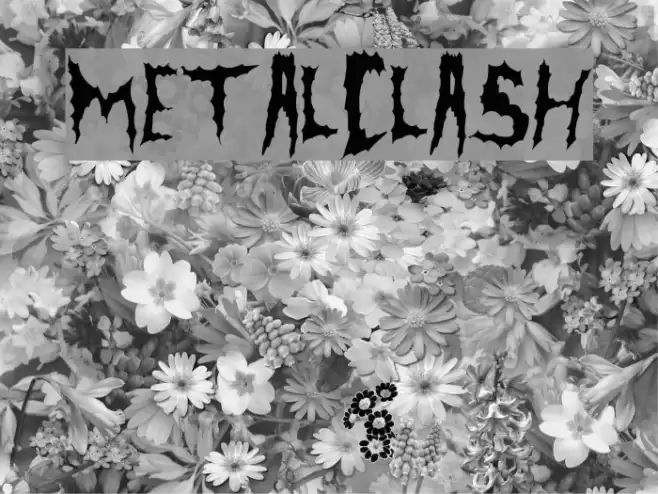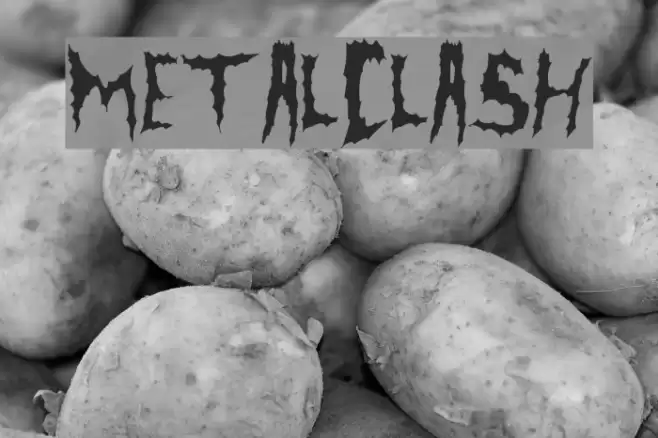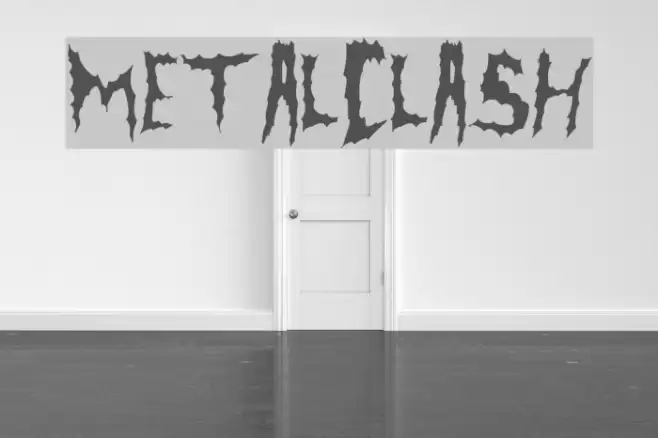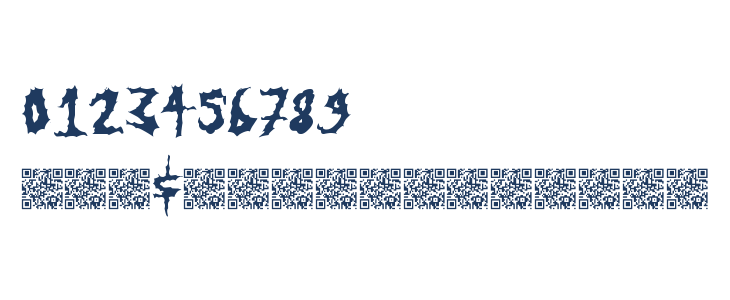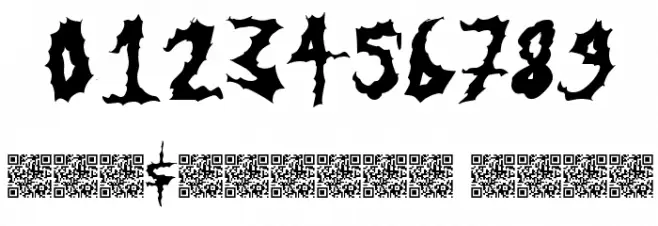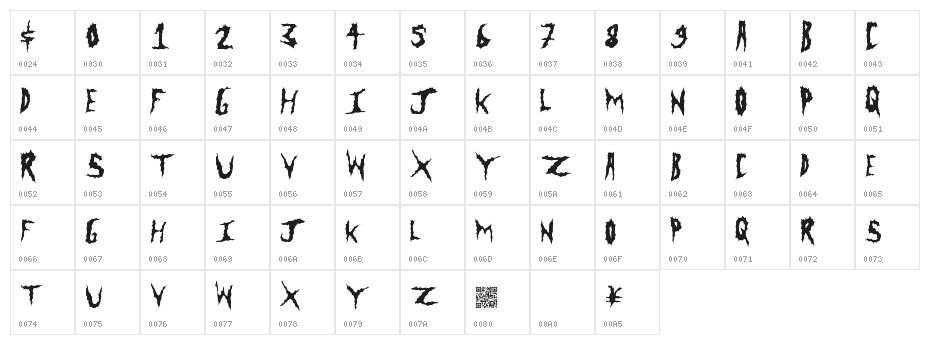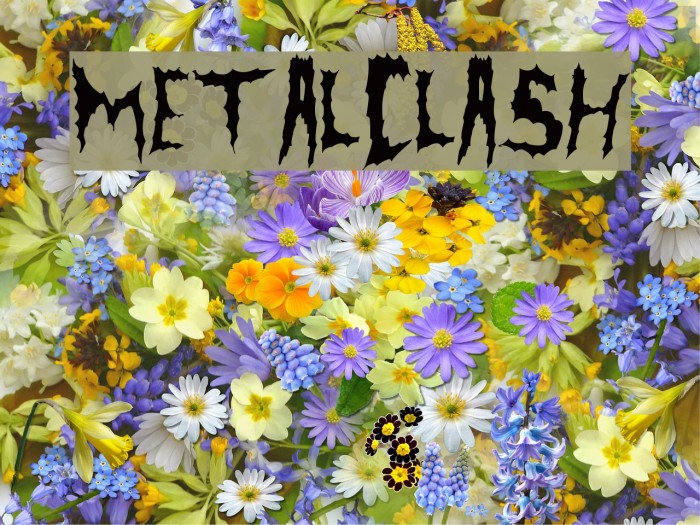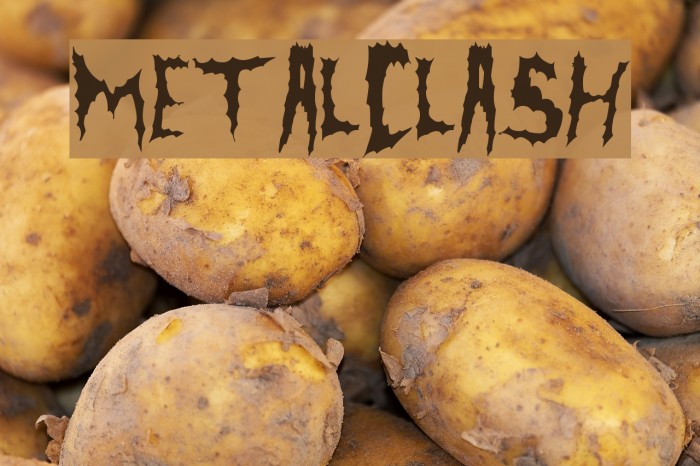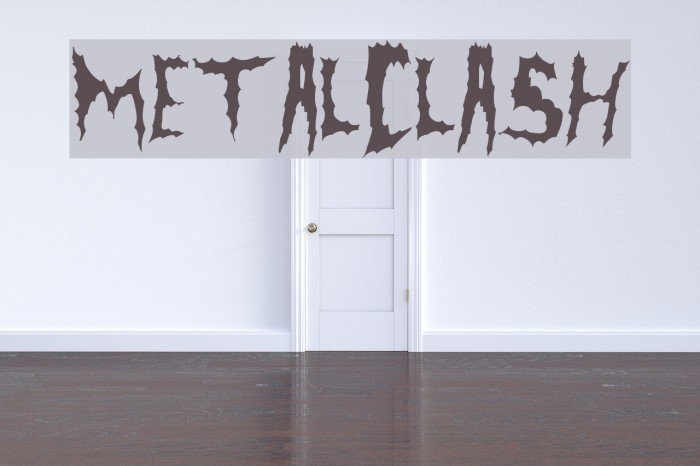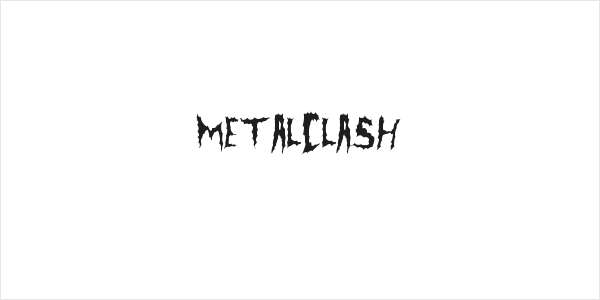
MetalClash Font
MetalClash Description
This font features a bold and jagged design, reminiscent of sharp metal edges and rugged textures. Each character is uniquely crafted with irregular, spiky outlines that give it a fierce and aggressive appearance. The uppercase and lowercase letters maintain a consistent style, with exaggerated angles and pointed tips that enhance its edgy aesthetic. Numbers and special characters follow the same design principles, ensuring a cohesive look across all glyphs. The font's distinct style makes it ideal for projects that require a strong, impactful visual statement.
A bold, jagged font with sharp, spiky edges for an aggressive look from Uncategorized fonts.
- Proposed Projects: Perfect for music album covers, event posters, video game titles, and branding for edgy or alternative products.
- Overall Style: Modern, Decorative